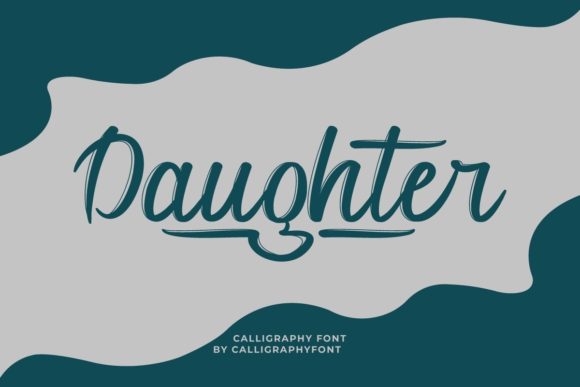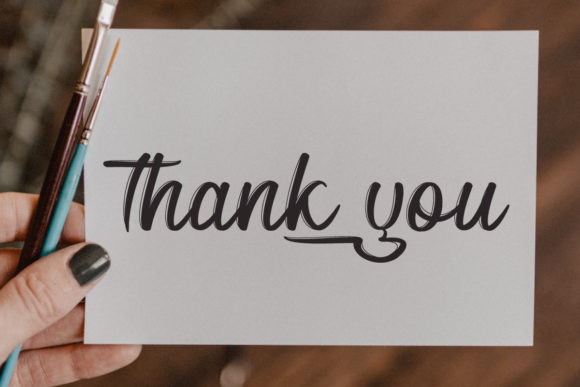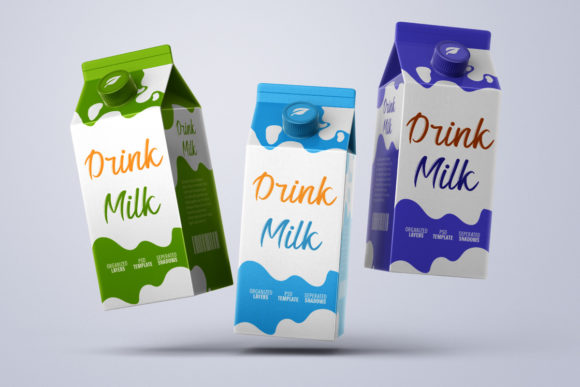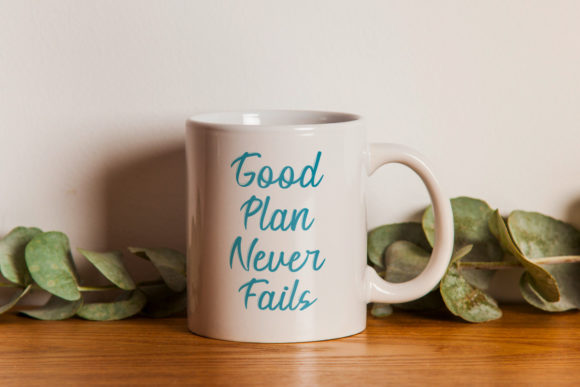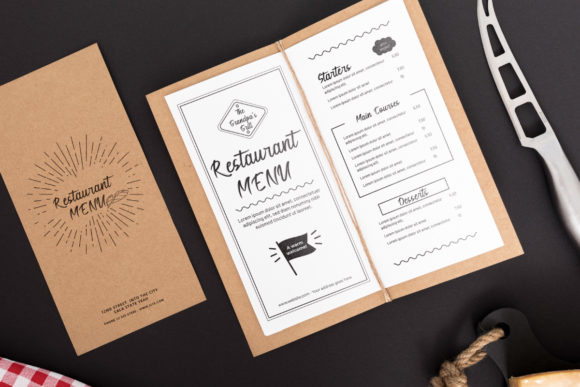
Daughter Font
About Daughter Font
Daughter is a well-balanced script font featuring charming, playful characters that seem to dance along the baseline. Add this font to your most creative ideas, and notice how it makes them stand out!